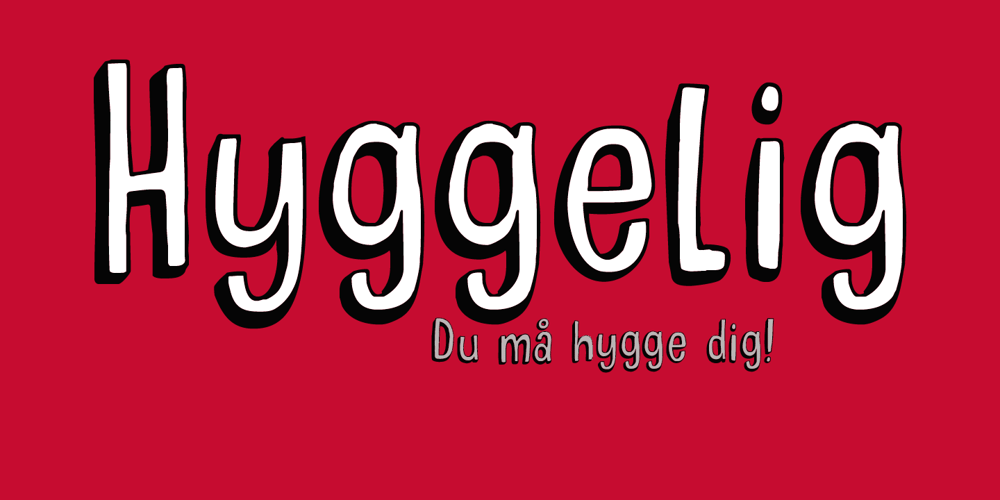
Hyggelig Font Family was designed by David Kerkhoff and published by Hanoded. Hyggelig contains 1 styles and family package options. After watching a bunch of Danish series like Dicte, Bron and The Killing, I figured it would be nice to give my newest font a Danish name. It became Hyggelig. Hyggelig, like the Dutch word ‘Gezellig’, cannot be translated into English, but it means something like ‘cosy’. And a ‘cosy’ font it is. Hyggelig is a very cute, very threedee-ish typeface. It works great in poster ads and as a display font. It comes with upper and lower case letters and a whole bunch of diacritics. Enjoy!